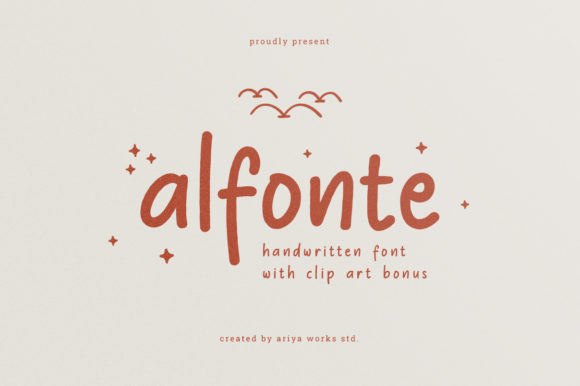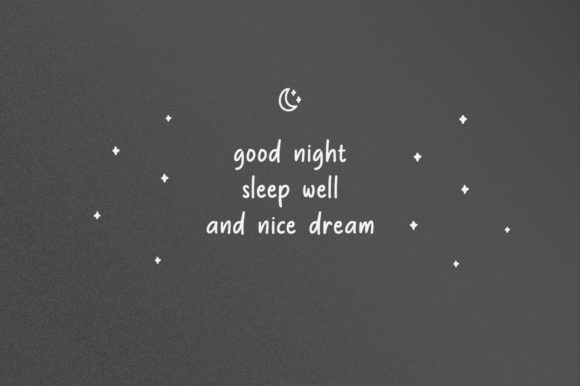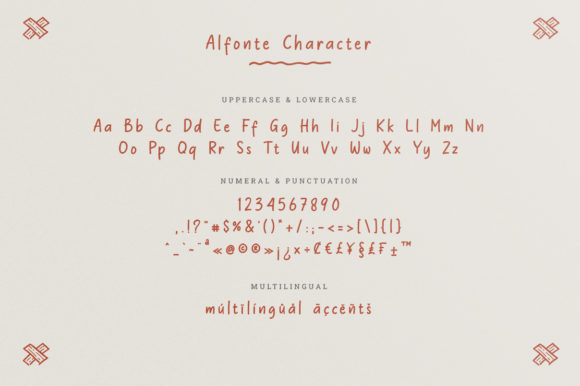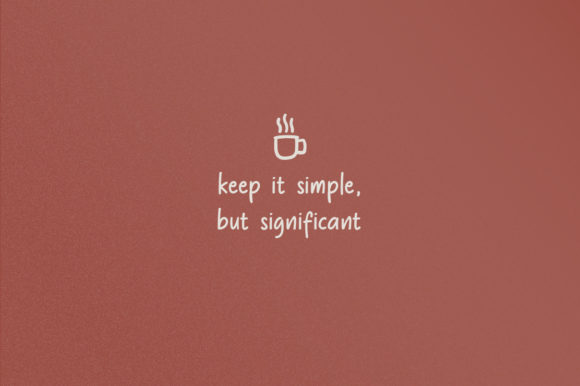
Alfonte Font: Cute Handwritten Script Font for Cricut & DIY Projects!
About the Alfonte Font
The Alfonte Font is here to transform your projects with its distinctive character and style. Alfonte is a clean script font. This font is very unique and natural because it is made from the designer’s digital handwriting. This font will make your designs look chic, authentic and amazing.
Alfonte’s elegant yet casual script style is ideally suited for branding projects requiring a touch of handwritten authenticity, particularly logos, short taglines, and invitations. It also works well in headlines for posters or marketing materials where a sophisticated, personal feel is desired. However, its delicate stroke weight makes it unsuitable for body text or long paragraphs, as readability would suffer. Avoid using it in UI applications or situations demanding high legibility at small sizes.
For optimal pairings, consider contrasting Alfonte with a clean sans-serif like Montserrat for a modern, balanced look, or a classic serif such as Garamond for a more traditional feel. A geometric sans-serif such as Futura could also create a striking juxtaposition, enhancing Alfonte’s organic quality.
Alfonte projects an overall personality of sophisticated casualness. It’s refined yet approachable, suggesting a brand that values both style and authenticity.
Alfonte Font Usage Examples
Alfonte Font Example